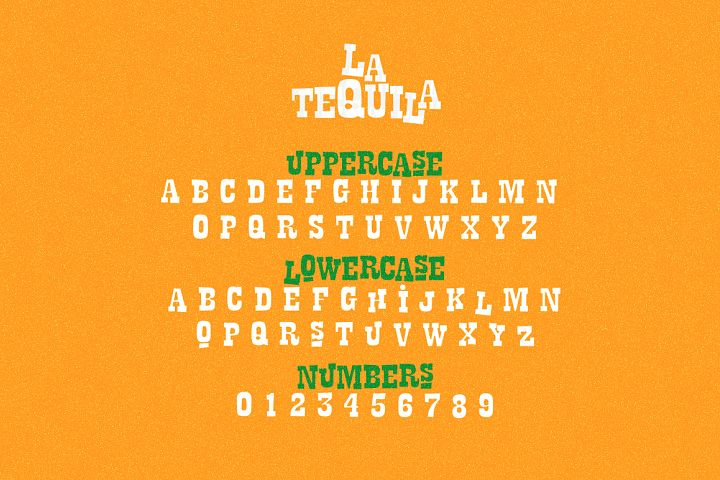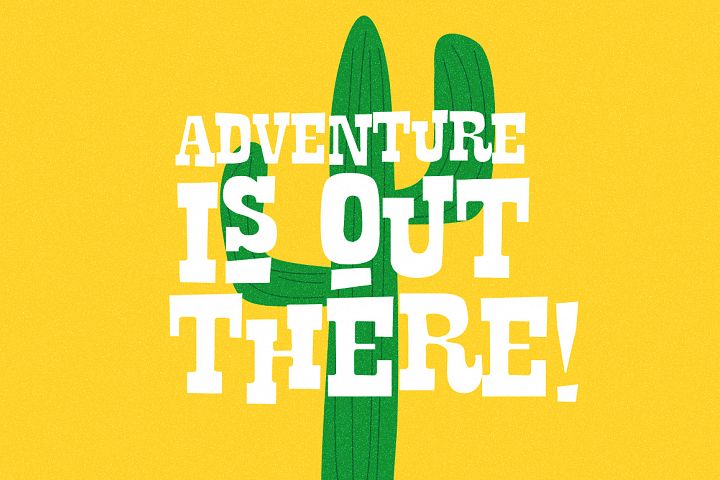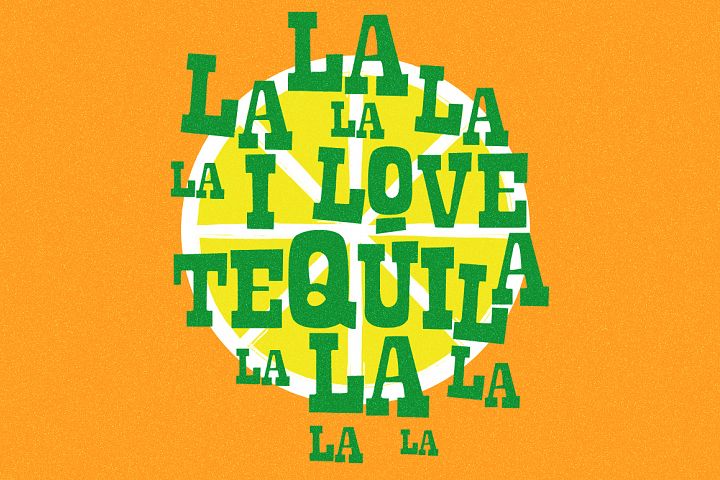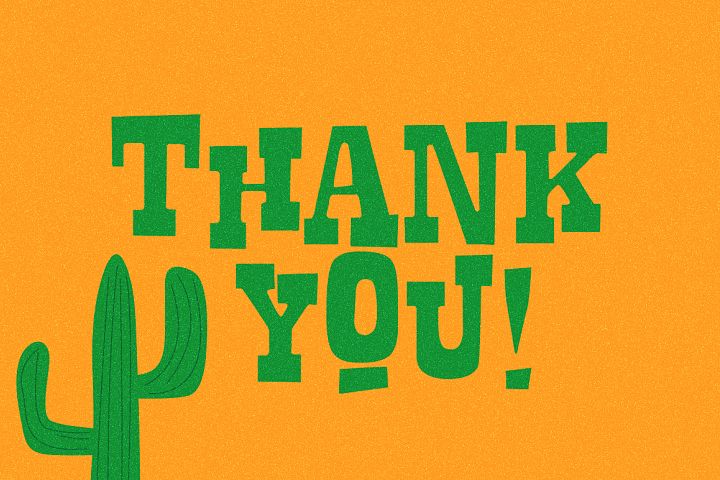
Introduction to La Tequila Font
There’s nothing quite like the rush of creativity that comes with starting a new project. The blank page stares back at you, waiting for your vision to bring it to life. For designers, this moment is a thrill – and it’s exactly what inspired me to dive into the world of typography and explore the La Tequila Font.
This fun and unique typeface is perfect for adding a touch of personality to your designs. With its playful flair and versatility, La Tequila Font is a valuable resource for any creative project. Whether you’re working on a sign, shirt, or card, this font is sure to bring a smile to your face and make your design stand out.
Key Features of La Tequila Font
- Designed to provide a distinctive, stylish touch to your designs, making it a valuable design resource.
- Includes a wide range of characters, including uppercase and lowercase letters, numbers, and special characters.
- Perfect for use in digital designs, such as logos, graphics, and text overlays, due to its high resolution.
Honest Review: La Tequila Font
La Tequila Font is a unique design resource that can elevate any creative project. I appreciate its free download option, which makes it accessible to designers of all levels.
The font features a transparent background, allowing for seamless integration into various design contexts. I’m impressed by its high quality, which is evident in its crisp lines and well-balanced typography.
- Unique and stylish design aesthetic
- High-quality typography and crisp lines
- Limited font styles and weights
- No bold or italic variations available
- Might not be suitable for complex, multi-faceted designs
Overall, I’m pleased with La Tequila Font’s performance. While it may have some limitations, its unique design and high quality make it a valuable addition to any designer’s toolkit.
Tips for Getting the Most Out of La Tequila Font
To get the most out of La Tequila Font, use it with a transparent background to create eye-catching designs. You can also pair it with other high-quality fonts to create a unique and creative look.
La Tequila Font is perfect for creative projects such as social media graphics, posters, flyers, and business cards. Its high-quality design and transparent background make it ideal for designers looking for a unique and stylish font.